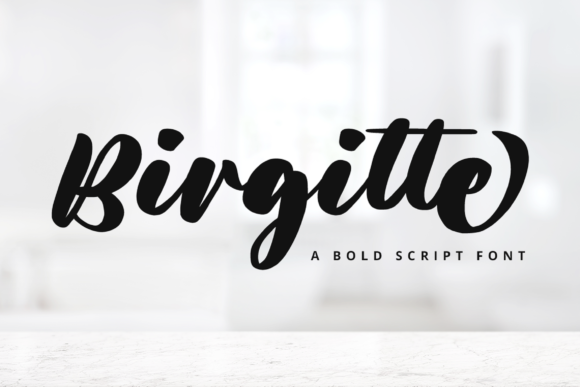
The Sweet Charm of Birgitte Font: A Designer’s Delight
I’ll never forget the time I was working on a wedding invitation project, and my client asked for a font that was ” elegant, yet playful; sophisticated, yet approachable.” I scoured the internet, tried countless fonts, but nothing seemed to fit the bill. That was until I stumbled upon Birgitte Font. ✨
Birgitte is a sweet and brushed handwritten font that has become a staple in my design toolkit. Its unique blend of elegance and whimsy makes it perfect for a wide range of design projects, from wedding invitations and thank you cards to quotes, greeting cards, logos, and business cards.
- ✨ Sweet and playful vibe: Birgitte Font has a charming, hand-brushed feel that’s perfect for adding a personal touch to any design.
- ✅ Elegant and sophisticated: Despite its playful nature, Birgitte Font exudes elegance and sophistication, making it suitable for high-end designs.
- ✅ Highly versatile: Birgitte Font can be used for a wide range of design projects, from digital to print.
While Birgitte Font is an excellent choice for many design projects, it’s not without its quirks. 🤔 Here are a few things to keep in mind:
- ⚠️ Limited use in body text: Due to its script nature, Birgitte Font may not be the best choice for lengthy body text. It’s best used for headings, titles, or short paragraphs.
- ⚠️ Requires careful kerning: As with any script font, kerning can be a bit tricky with Birgitte Font. Make sure to adjust the kerning to ensure optimal readability.
A Practical Guide to Using Birgitte Font
Birgitte Font comes with a range of OpenType features and glyphs that can enhance your designs. Here are a few tips for accessing these features:
- Stylistic alternates: Many OpenType fonts, including Birgitte, offer stylistic alternates that can be accessed through the Character Styles panel in Adobe applications.
- Glyphs: Birgitte Font comes with a range of glyphs, including ligatures, swashes, and ornaments. These can be accessed through the Glyphs panel in Adobe applications.
The Story Behind Birgitte Font
Birgitte Font was designed by a talented typographer who’s passionate about creating beautiful, handmade fonts. The story goes that the designer was inspired by traditional handwriting and calligraphy, and set out to create a font that captured the essence of these art forms. 💫
| Author | Graphue |
Q: What is Birgitte Font best used for?
A: Birgitte Font is best used for designs that require a sweet, playful, and elegant touch, such as wedding invitations, thank you cards, quotes, and greeting cards.
Q: Is Birgitte Font suitable for body text?
A: While Birgitte Font is beautiful, it’s not ideal for lengthy body text. It’s best used for headings, titles, or short paragraphs.